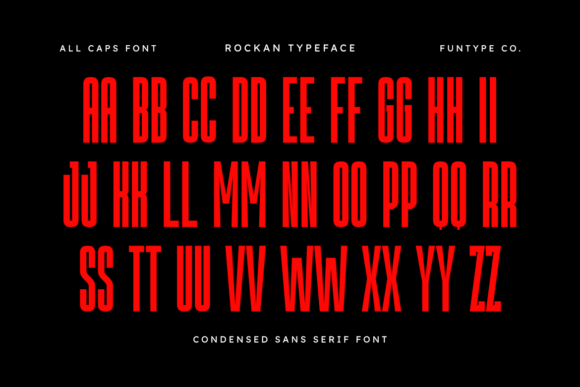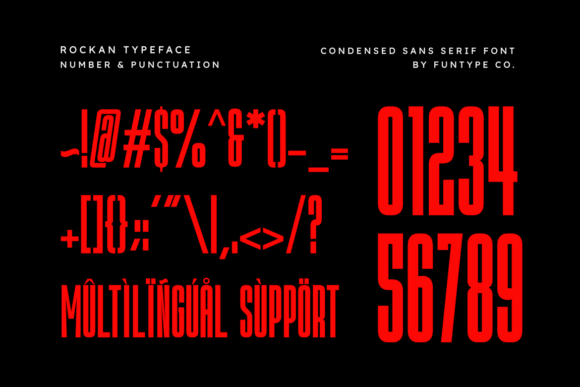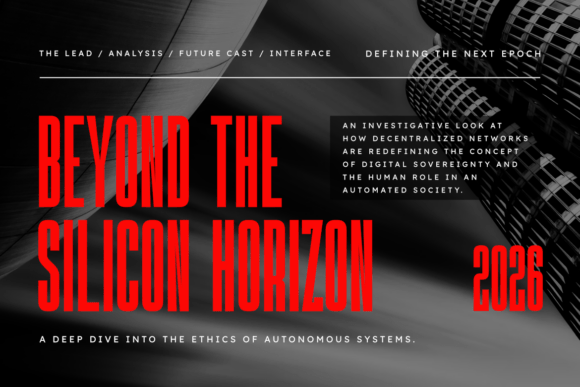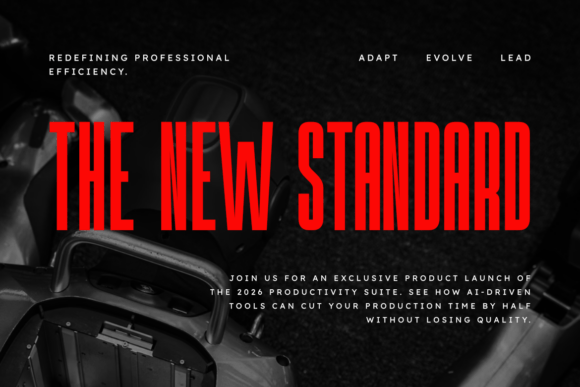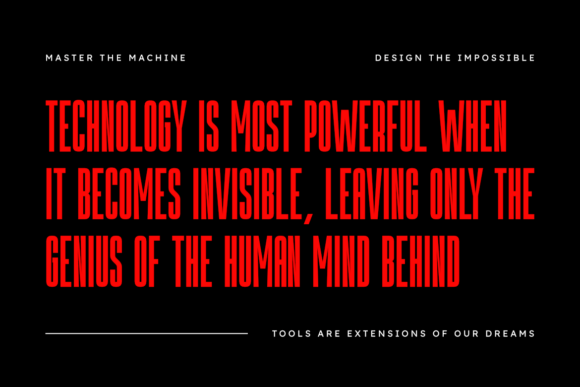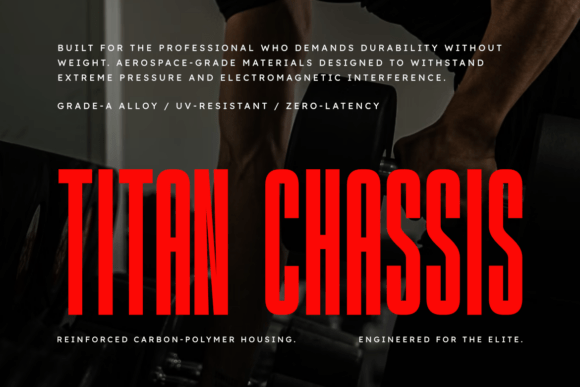
Unlocking the Power of Rockan Font
Have you ever been stuck on a creative project, struggling to find the perfect font to bring your idea to life? That’s where the Rockan Font comes in – a game-changing, high-quality typeface that’s about to revolutionize your design workflow.
As a designer, you know the importance of choosing the right font for your project. It’s not just about aesthetics; it’s about conveying your message effectively and making a lasting impression on your audience. With the Rockan Font, you’ll have access to a versatile and modern sans serif typeface that’s perfect for headers, logos, and promotional materials. And with its flawless versatility across all platforms, you can be sure that your designs will look stunning, whether you’re working on a free download or a high-end commercial project.
Key Features of Rockan Font
- Features a unique, modern design that can add a touch of sophistication to any project.
Honest Review: Rockan Font
I recently came across the Rockan Font and I must say it’s a great addition to my design resource library. One of the standout features of this font is its high quality and versatility, making it perfect for a wide range of creative projects.
- ✨ The font’s modern and edgy design makes it ideal for projects that require a bold and eye-catching look.
- ⚠️ The font may not be suitable for projects that require a more traditional or classic look.
- ⚠️ Some users may find the font to be too bold or overwhelming, especially in text-heavy designs.
Overall, I’m impressed with the Rockan Font and would definitely recommend it to designers looking for a high-quality and versatile font for their creative projects. Whether you’re working on a personal or commercial project, this font is definitely worth checking out.
Rockan Font is perfect for creating titles and headings in designs, presentations, and documents. Its transparent background makes it easy to use in combination with other design elements, and its high-quality design makes it ideal for professional and creative projects.
Alternatives to Rockan Font
Great Vibes Font is a high-quality, handwritten font perfect for creative projects that require a personal touch. It features a transparent background, making it ideal for use on various backgrounds. Great Vibes Font is available for free download and is a great alternative to Rockan Font for designers who want a more elegant and sophisticated look.
When to use: Wedding invitations, greeting cards, and other personal stationery.
Comparison to Rockan Font: While Rockan Font has a more edgy and bold feel, Great Vibes Font is more refined and elegant, making it suitable for a wider range of design projects.
Pacifico Font is a beautiful, cursive font that is perfect for creative projects that require a touch of elegance and sophistication. It features a transparent background and is available for free download, making it a great design resource for designers. Pacifico Font is similar to Rockan Font in its flowing lines and curves, but it has a more relaxed and casual feel.
Q: Is the Rockan Font suitable for high-quality printing?
Yes, the Rockan Font is designed to be high-quality and suitable for printing. With its crisp lines and precise typography, it’s perfect for business cards, brochures, and other marketing materials that require a professional finish.